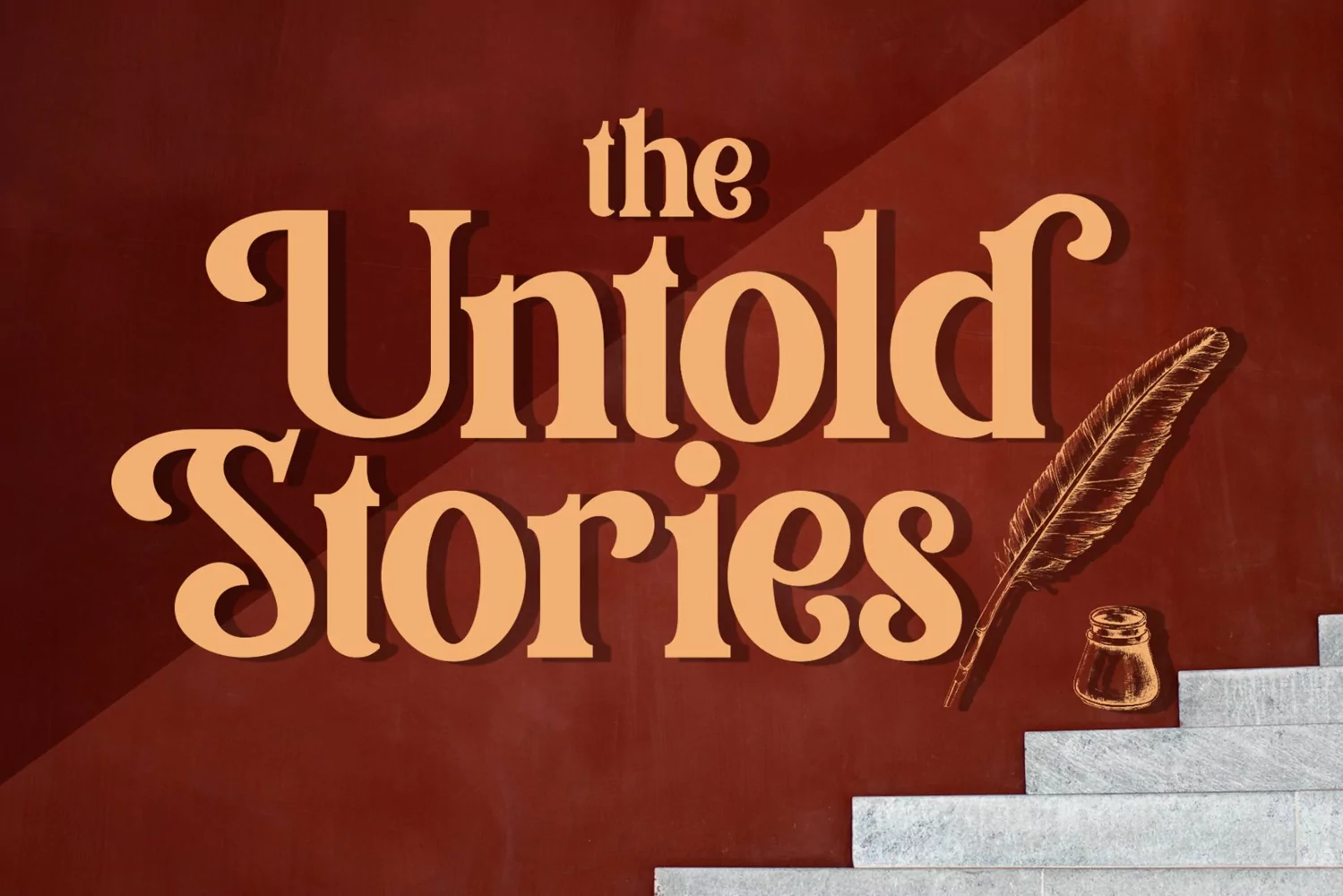
Gavin Zoo
Gavin Zoo is a decorative font that was inspired by lettering design that i saw, and it was crafted by hand to add a natural handmade feeling and i make it clean with pentool.
If you looking for decorative font that have a unique style for your title or even branding and logotype, Gavin Zoo is a great choice for that purpose.
Opentype featuresGavin Zoo font is very good looking in logotype, labels, decorative lettering, playful design, product packaging, invitation titled, advertising and others.